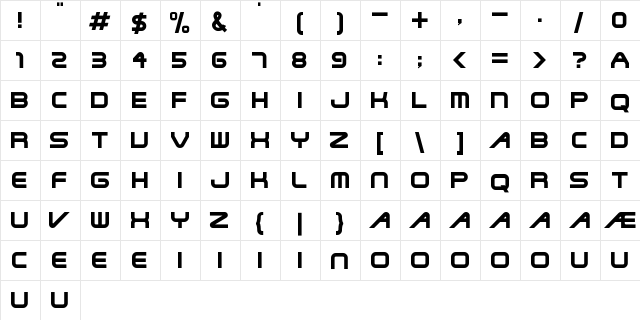
Terminator Two Regular Font Preview
Terminator Two Regular
Terminator Two Regular Font Details
Design Context for Terminator Two Typeface
Terminator Two is a composed and adaptable typeface that performs quietly and consistently across a wide range of design contexts.